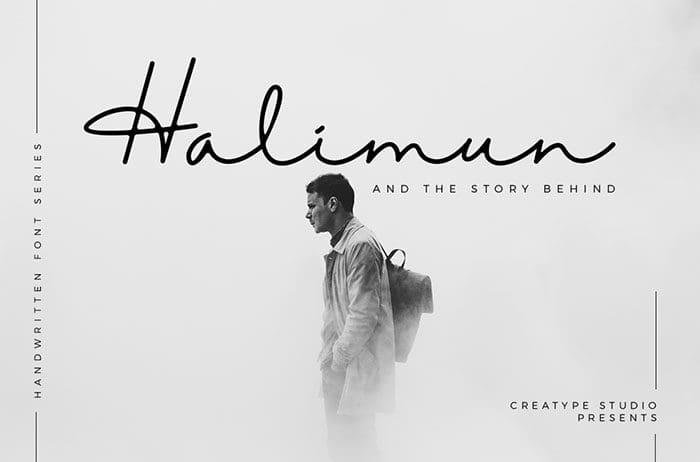
Halimun Script Font
Halimun Script Font is a new modern & fresh script with a handwritten and script style that makes this font looks elegant, natural, stylish, and perfect for any awesome projects that need handwriting taste. Thanks to Creatype Studio for sharing this font! Take a look at this portfolio for more of his stunning fonts.